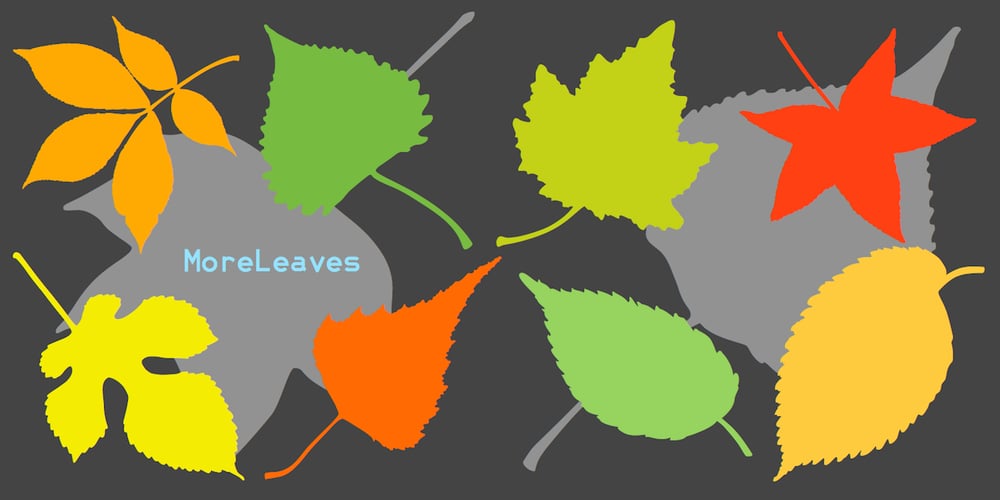
MoreLeaves
MoreLeaves font
MoreLeaves Font Family was designed by Robert Schenk and published by Ingrimayne Type. MoreLeaves contains 4 styles and family package options. In 1990 I designed the font XLeafMeAlone. In 2006 I decided that it was time to improve it. Instead of adding to it, I created two new fonts containing almost 200 leaves: MapleOaks and More Leaves. Among the leaves you will find in MoreLeaves are elm, cottonwood, tulip tree, ash, hickory, locust, ginko, aspen, sassafras, hawthorn, beech, and birch. There are also a few that come from shrubs and I am not sure what they are, but they looked interesting so I put them in. You will not find oaks, maples, or sycamores–they are in MapleOaks. Why leaves? Because people like them. As a large part of the biological world that is all around us, leaves are fascinating in their shapes and endless variations. In XLeafMeAlone I took about 50 shapes and rotated them 180 degrees to give a typeface with approximately 100 glyphs. In each of these two typefaces, MoreLeaves and MapleOaks, there are almost 100 glyphs. Each of those glyphs is rotated in 90-degree increments to yield two families of four typefaces that should be very useful if one wants to create borders of leaves.